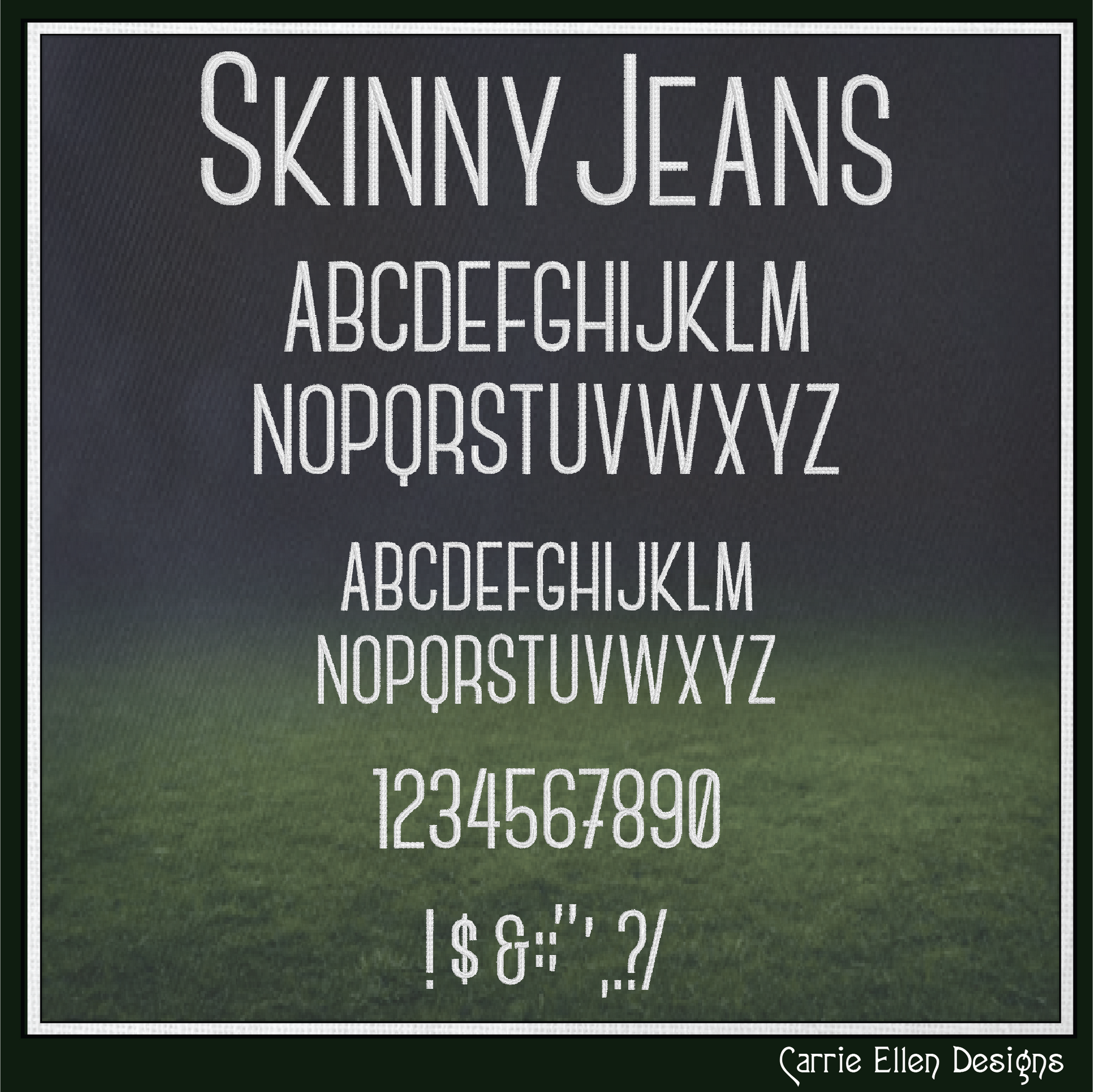
Skinny Jeans BX Fonts and Lettering Stitch Files, Narrow Slim Block Alphabet Machine Embroidery (3768)
Add beautiful text and creative flair to your embroidery projects with our BX Fonts and Lettering Stitch Files collection! Each font is carefully digitized to ensure smooth, professional stitching and balanced density, making it easy to personalize anything from gifts and apparel to home décor and accessories.
Our BX fonts are perfect for creating names, monograms, sayings, and decorative lettering directly within your embroidery software—no need for manual placement or complicated setups.
💡 Why You’ll Love These BX Fonts:
- Professionally digitized for clean, high-quality stitching
- Easy resizing and spacing for perfect lettering every time
- Ideal for monograms, names, and creative text embroidery projects
- Designed for both hobbyists and professional embroiderers